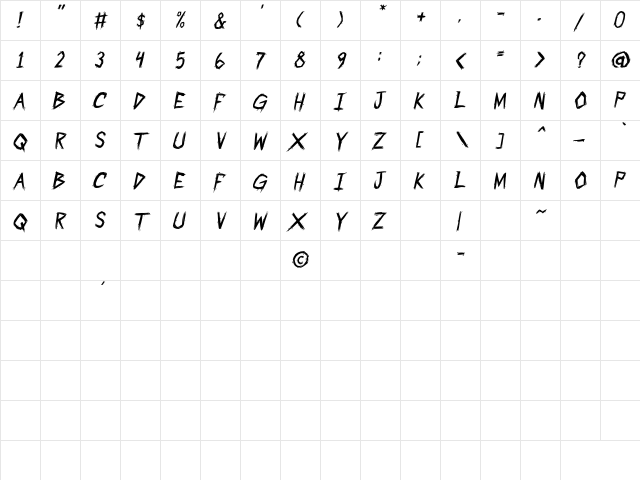
Party Crasherz PG Italic
Design Context for Party Crasherz PG Typeface
Party Crasherz PG is a composed and adaptable typeface that performs quietly and consistently across a wide range of design contexts. Its italic angle brings a sense of urgency and motion to the letterforms.
Pro Tip: Use Party Crasherz PG for emphasis, pull quotes, and subheadings where its slanted energy can add rhythm to the layout.